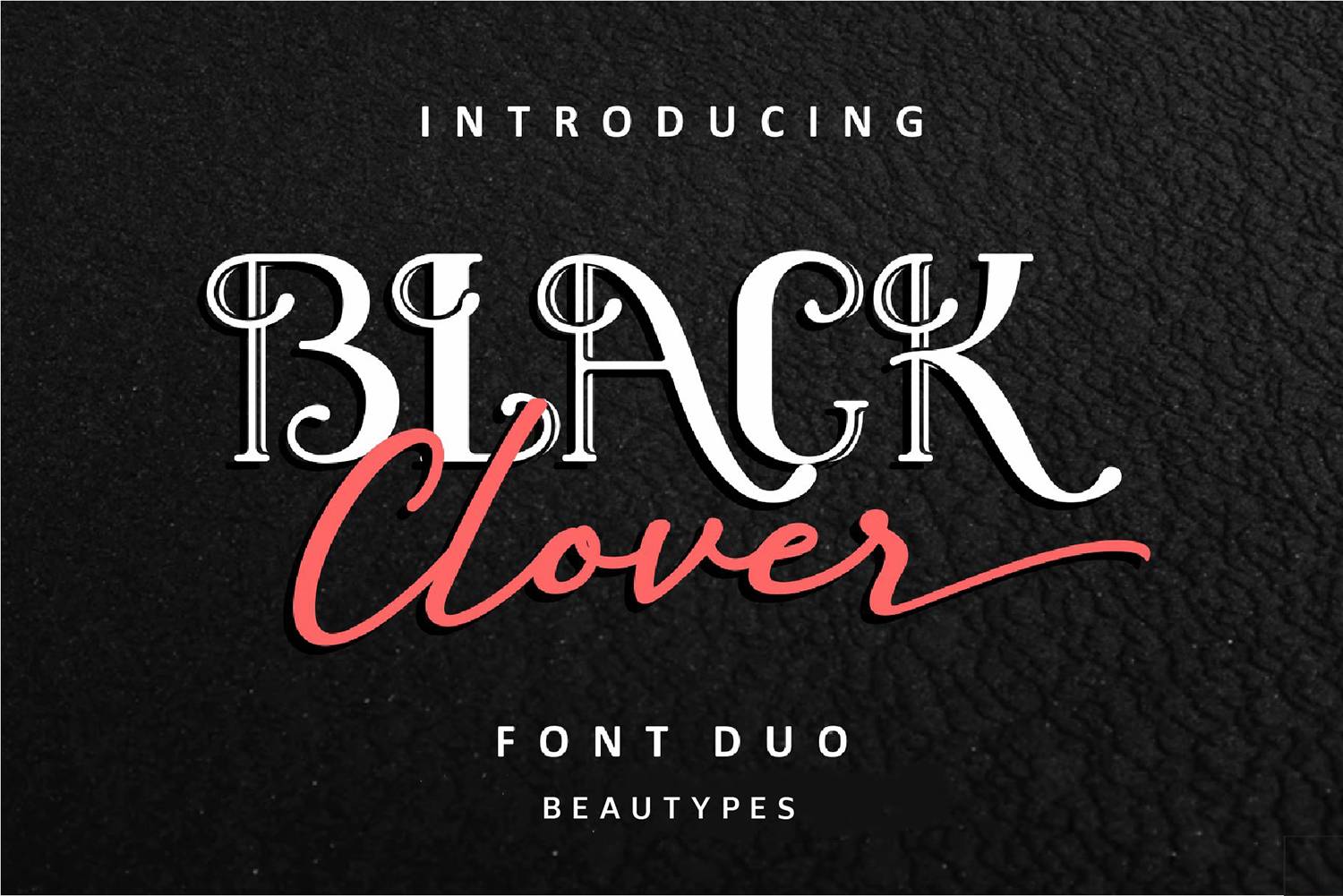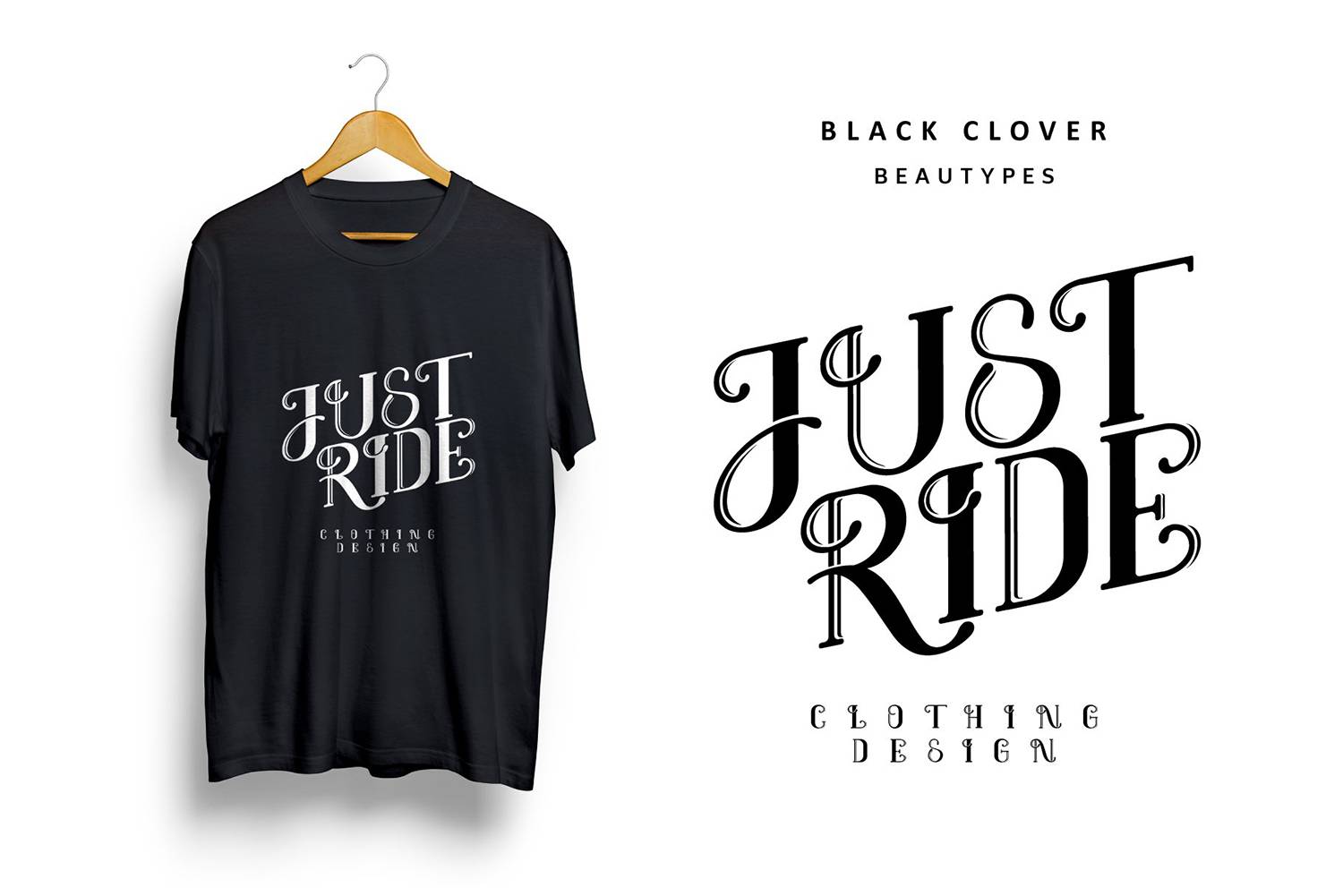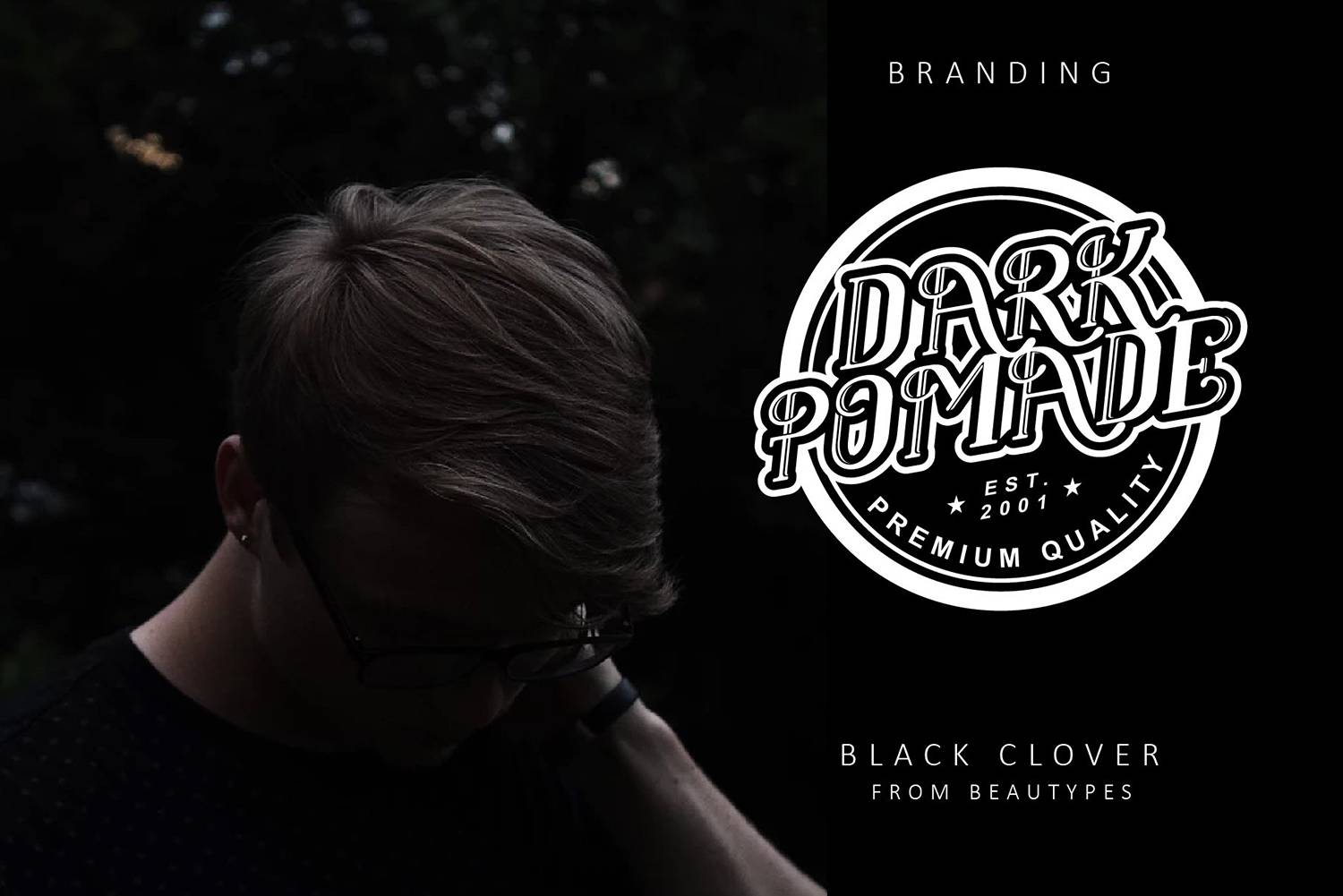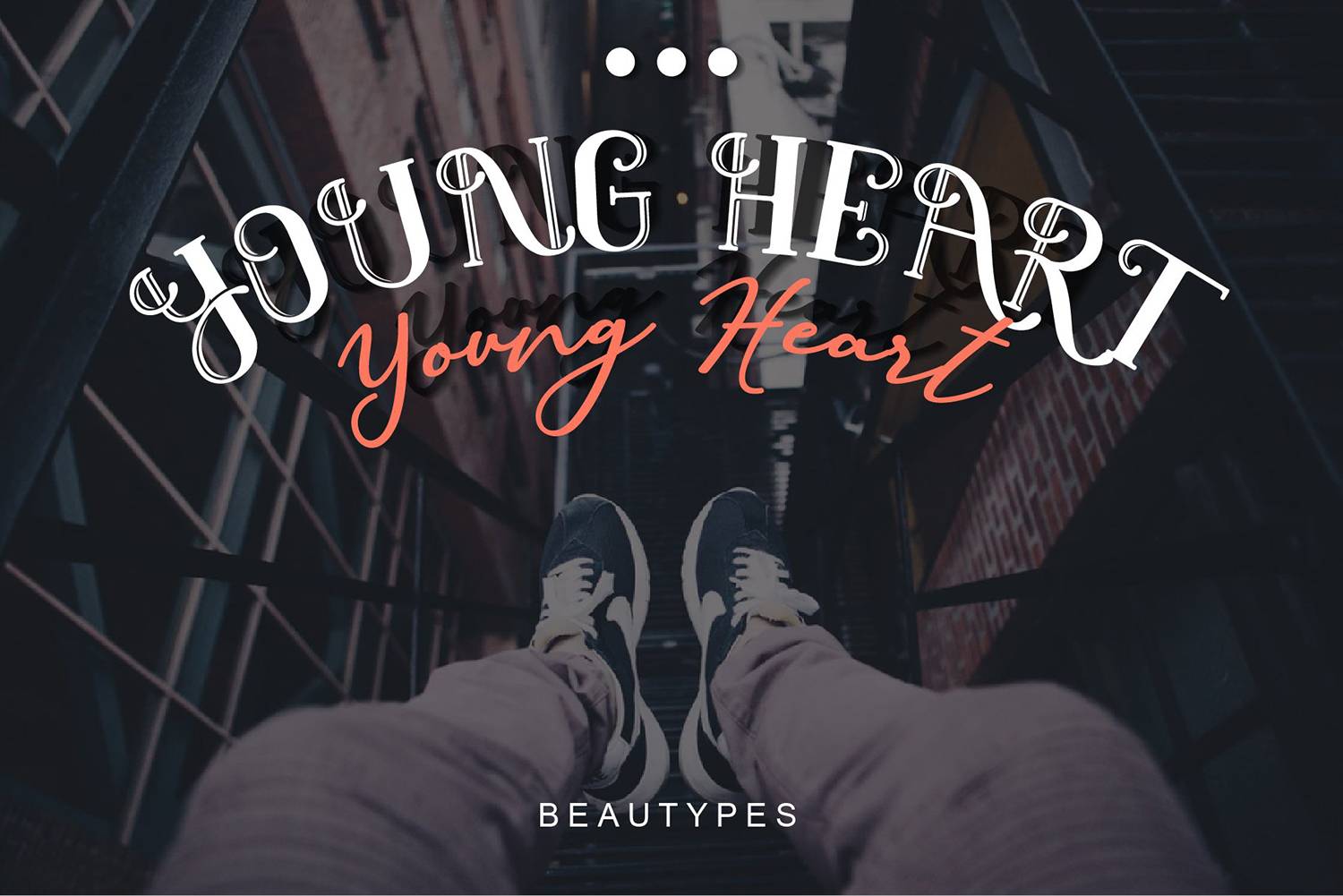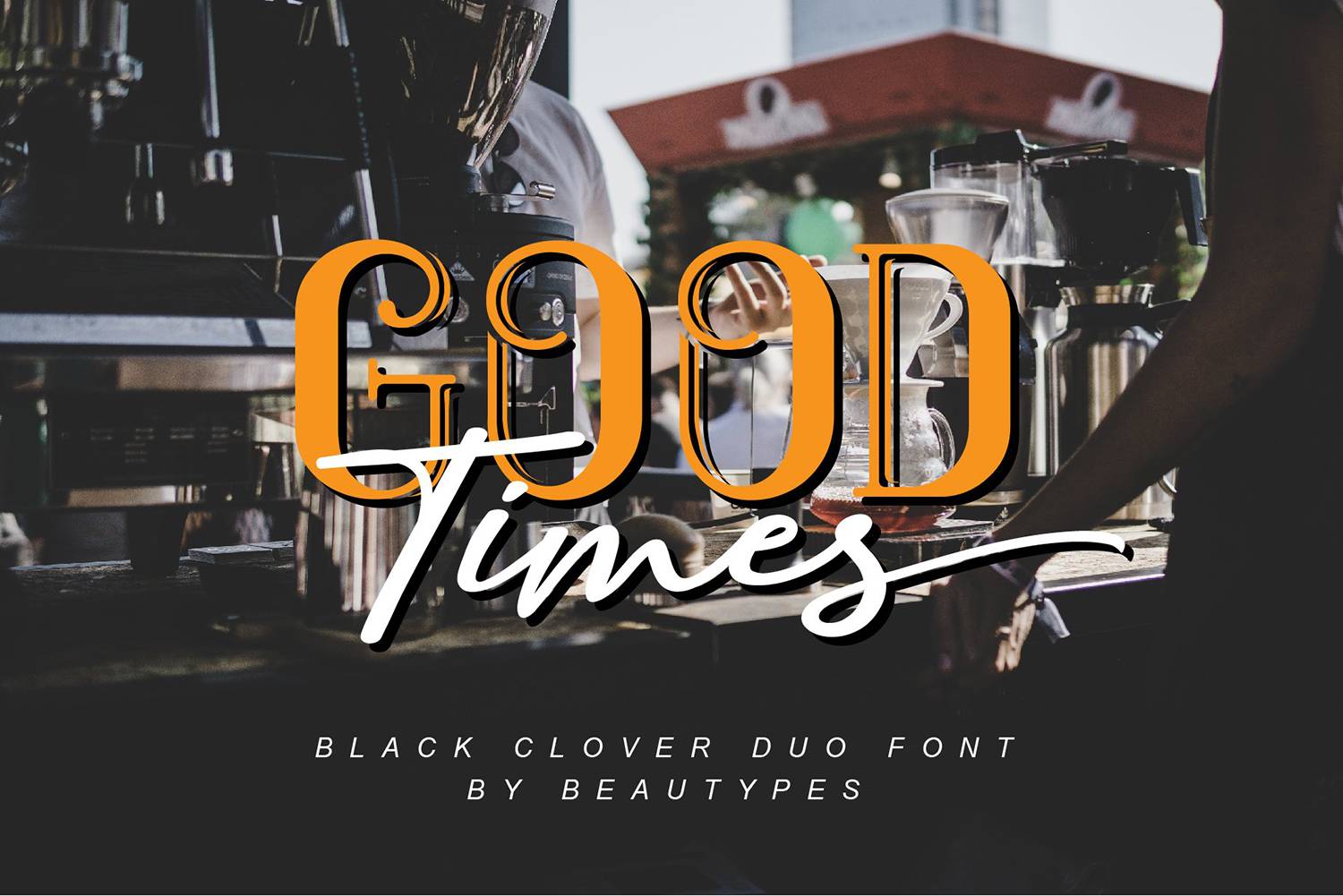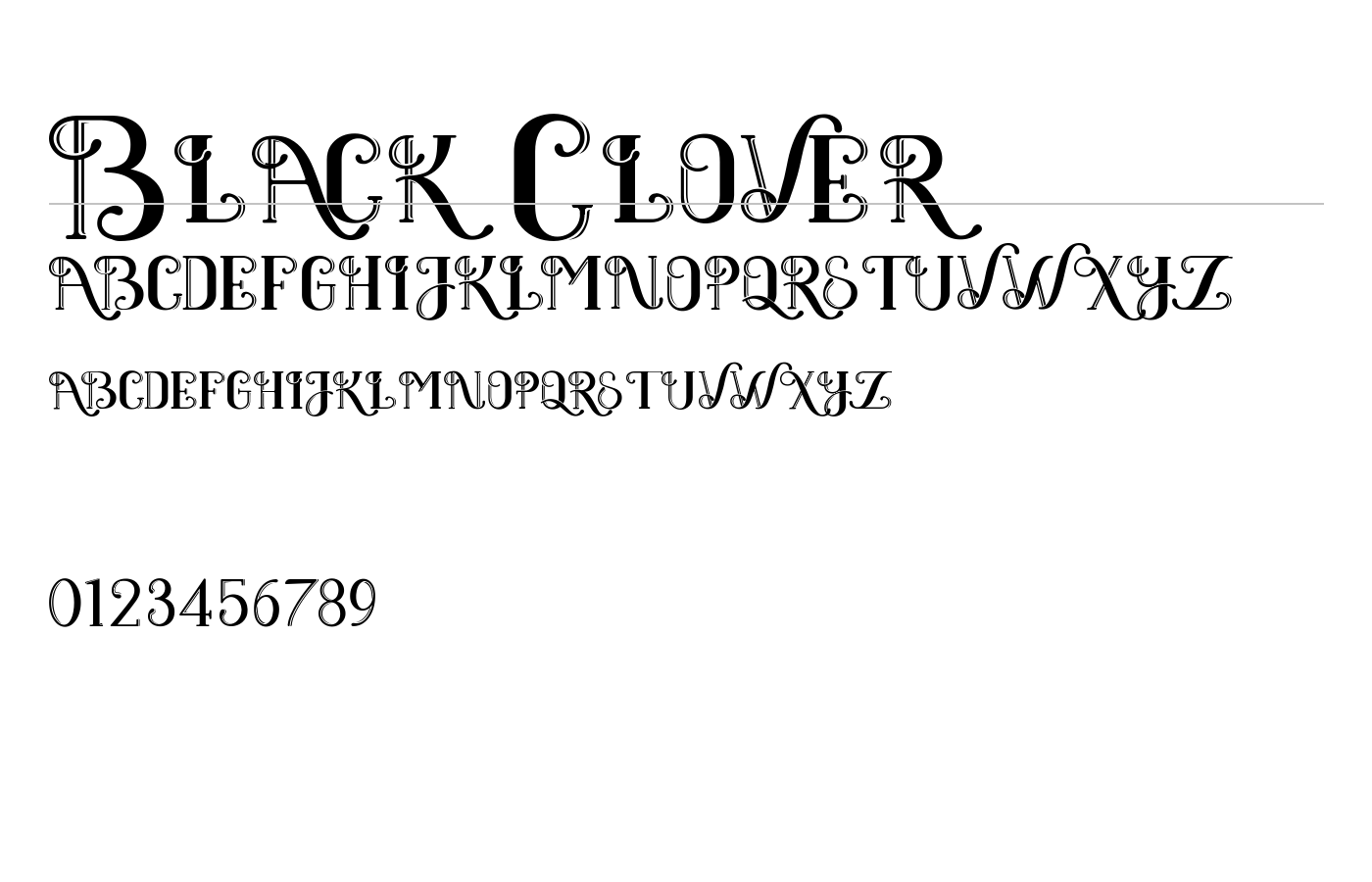
Black Clover Duo is an ornate serif font that combines high-contrast strokes with elegant, swirling flourishes, giving it a vintage yet playful charm. Its tall, narrow letterforms with intricate details make it perfect for eye-catching headlines, logos, and fashion branding where a touch of sophistication and uniqueness is desired. This font stands out best in decorative or display uses, adding artistic flair without overwhelming the design.
Black Clover Duo Font
About Black Clover Duo Font
| Font family | Black Clover Duo Font |
| Designer | Rizaldi Wandani |